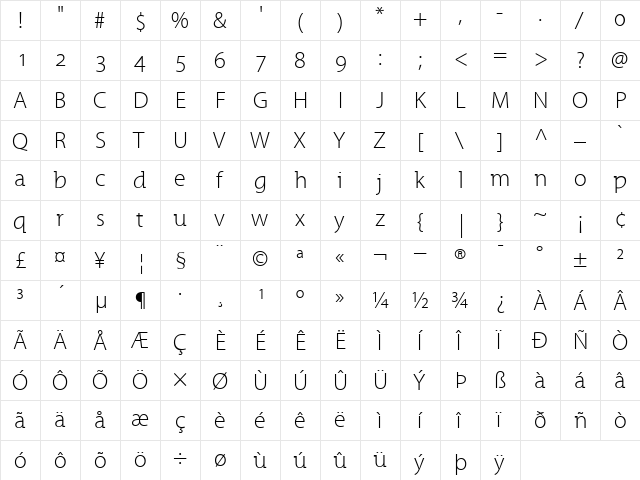
Grandesign Perfecto Regular
Design Context for Grandesign Perfecto Typeface
Grandesign Perfecto is a composed and adaptable typeface that performs quietly and consistently across a wide range of design contexts.
Pro Tip: Use Grandesign Perfecto in both headline and body roles to test its range before committing to a single application.